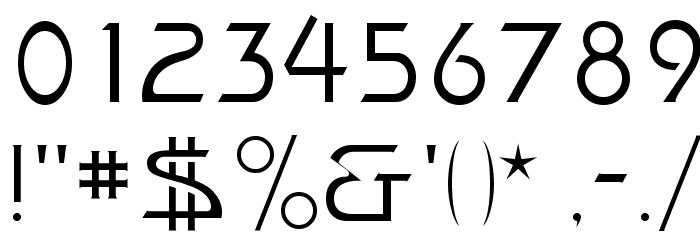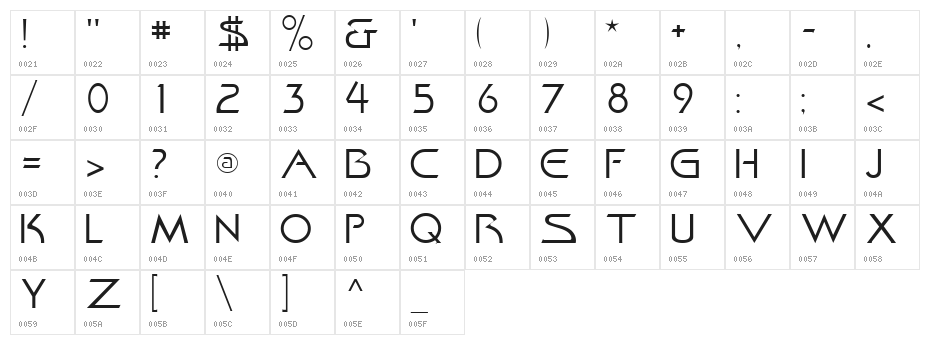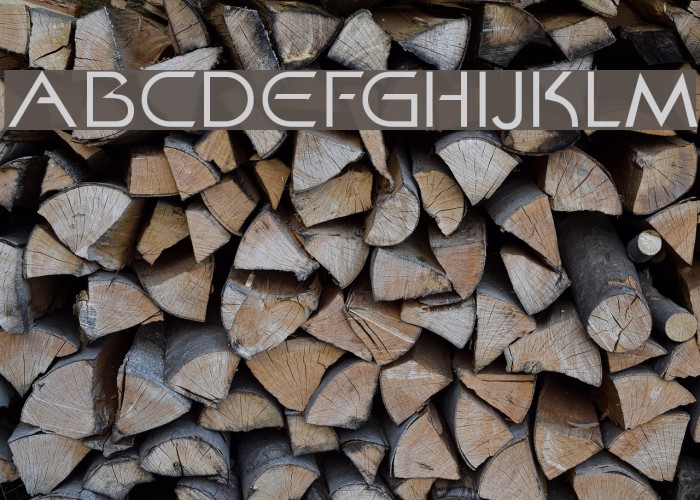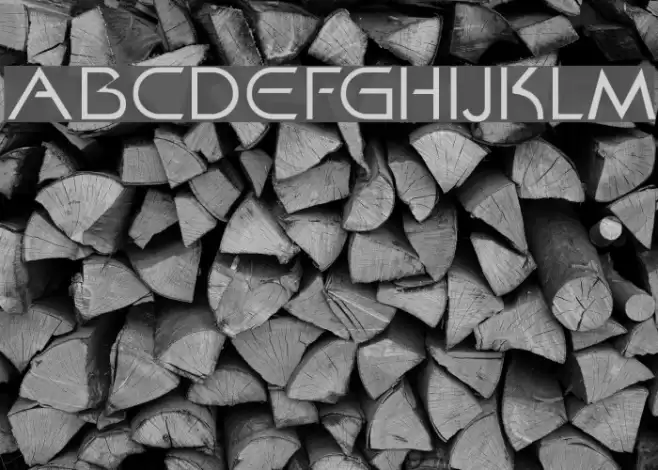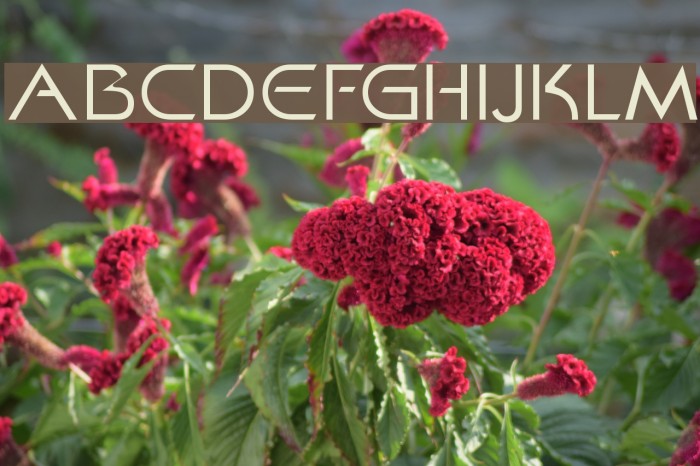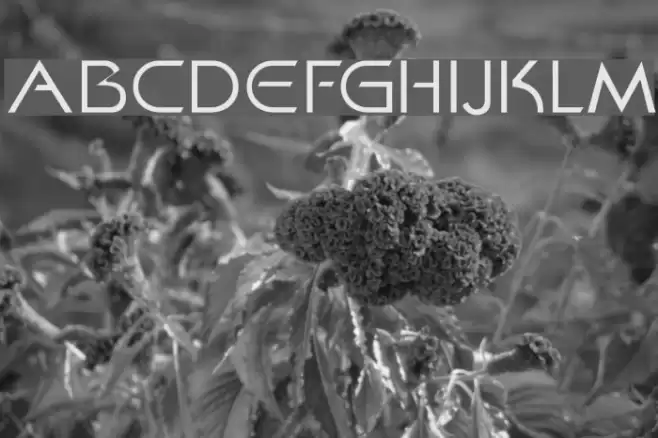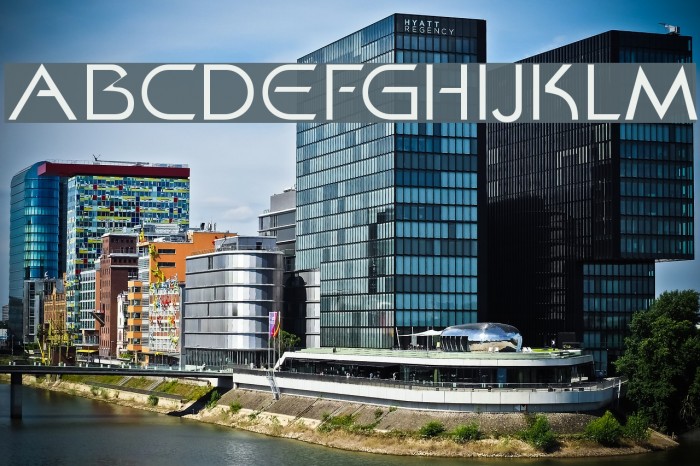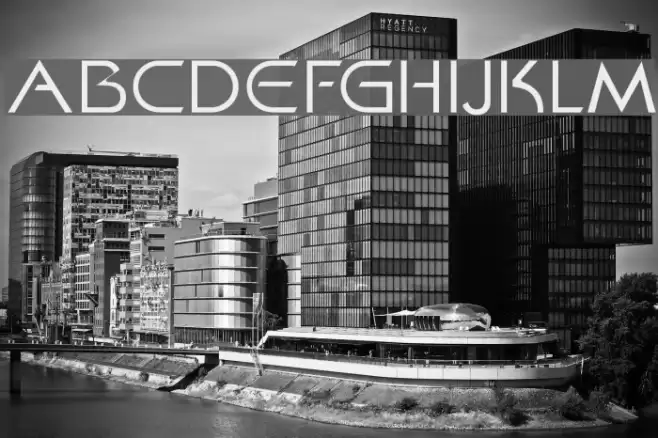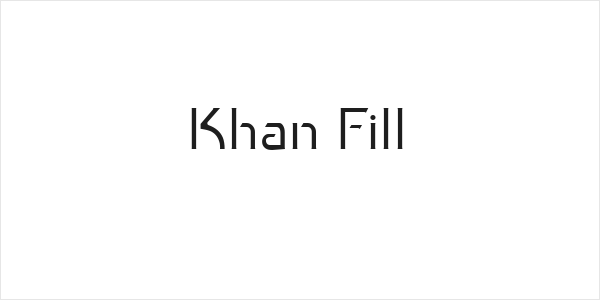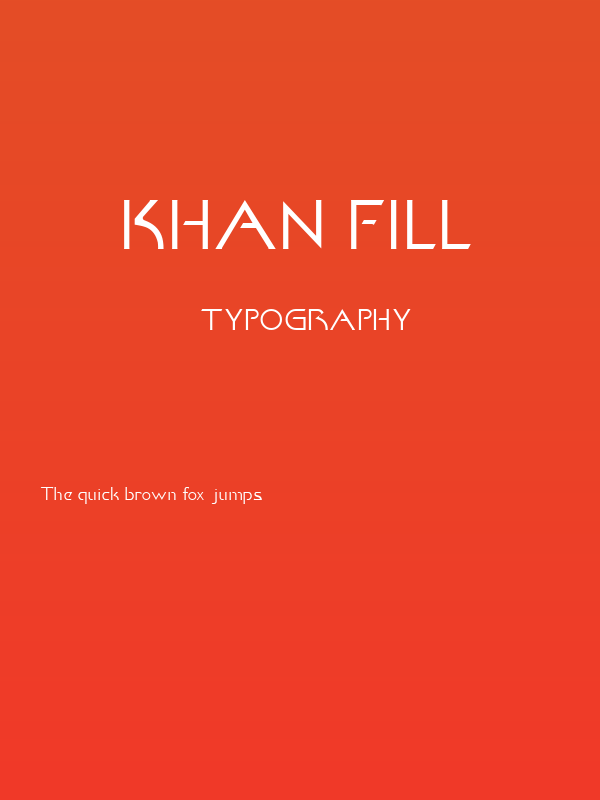
Khan Fill Font
Khan Fill Description
This font features a modern and geometric design with a futuristic flair. The characters are crafted with sharp angles and clean lines, creating a sense of precision and clarity. The uppercase letters exhibit a unique style with distinct cuts and curves, while the lowercase letters maintain a consistent flow, enhancing readability. The numerals are bold and easily distinguishable, complementing the overall aesthetic. Special characters are designed to match the angular theme, providing a cohesive look across all glyphs. This font is ideal for projects that require a contemporary and innovative appearance.
| Overall Style | Modern, Geometric |
| Use Case | Headlines, Logos, Digital Interfaces |
| Proposed Projects | Ideal for branding, technology-related projects, modern advertising, and digital interfaces. |